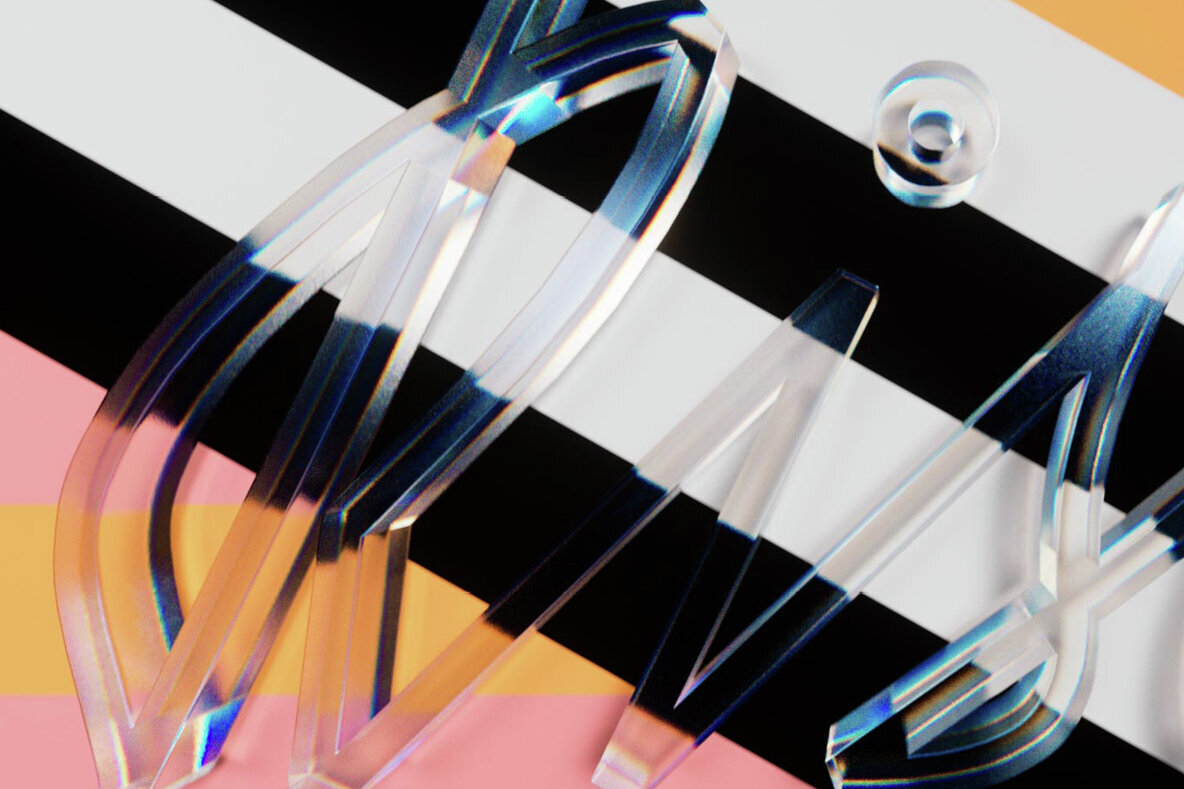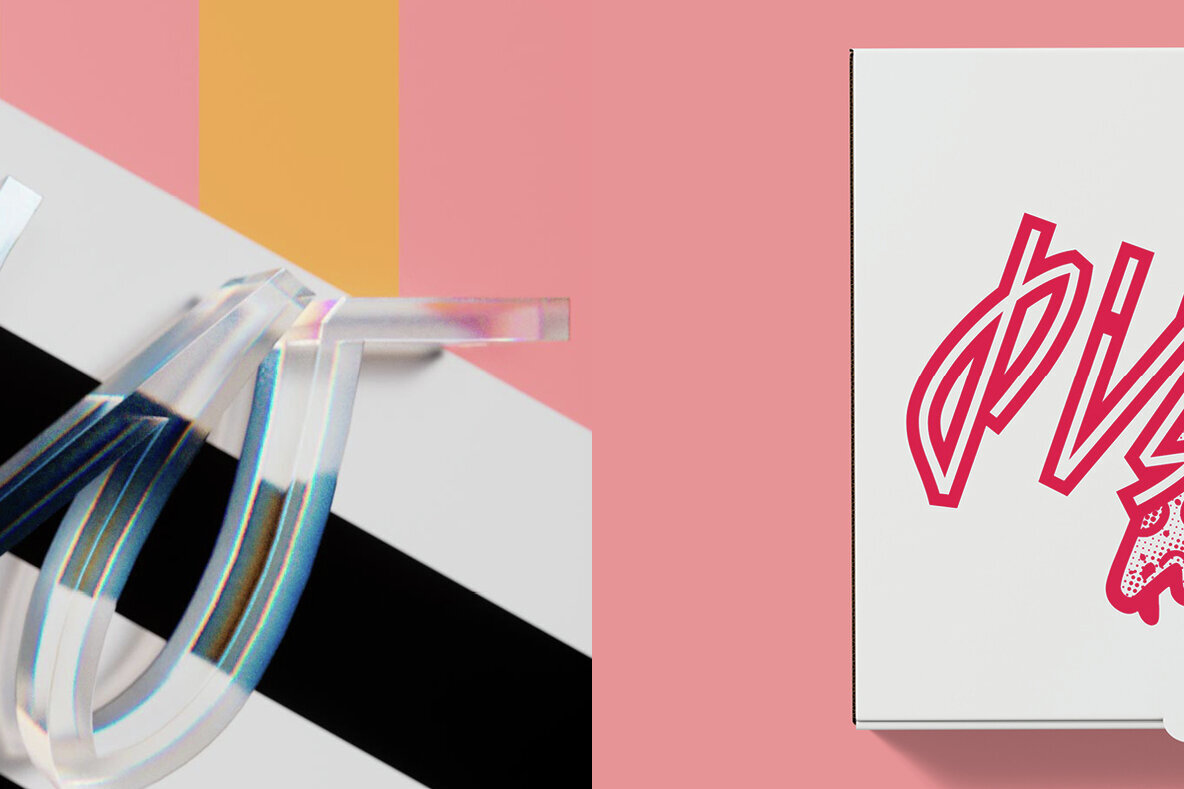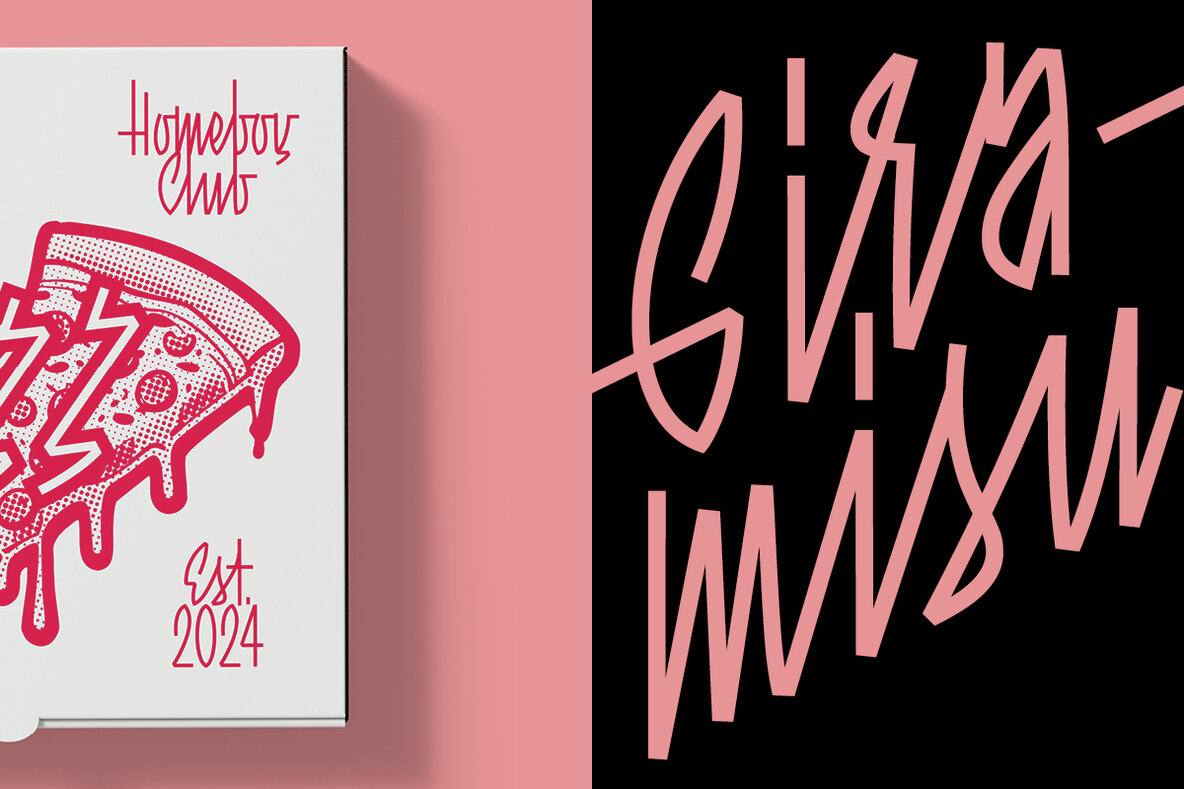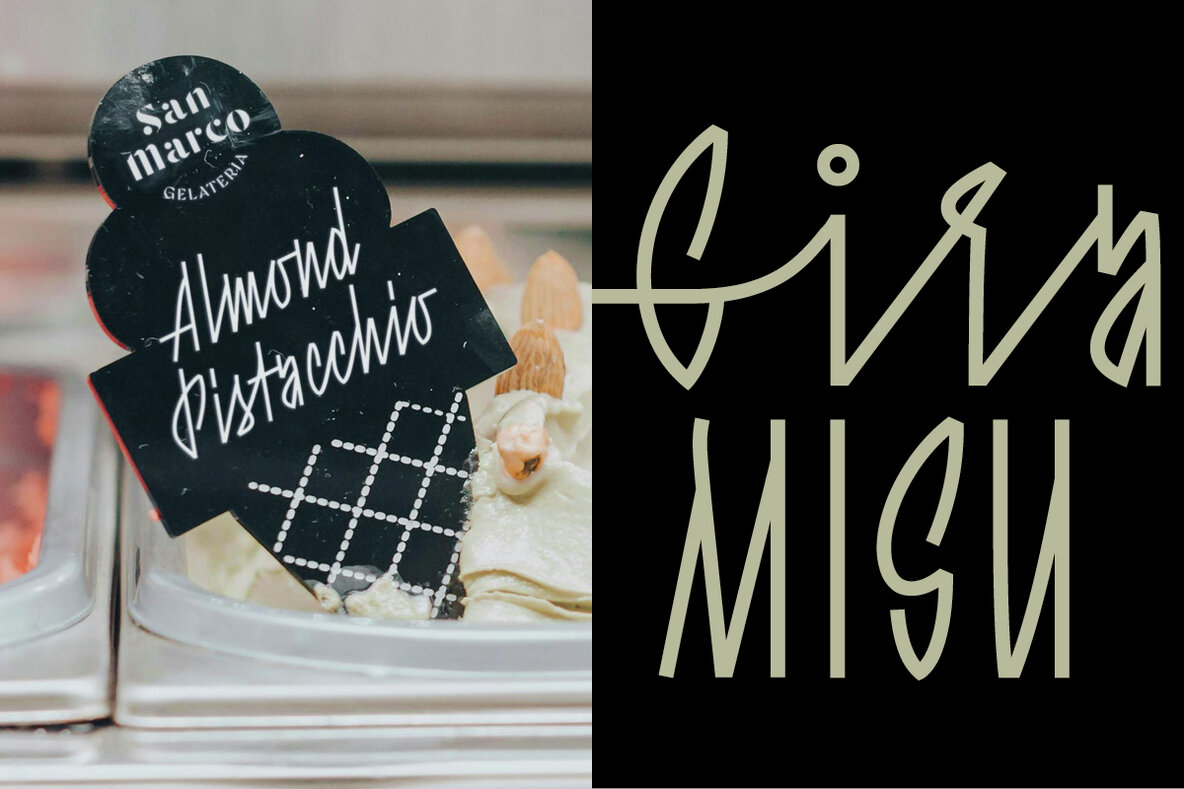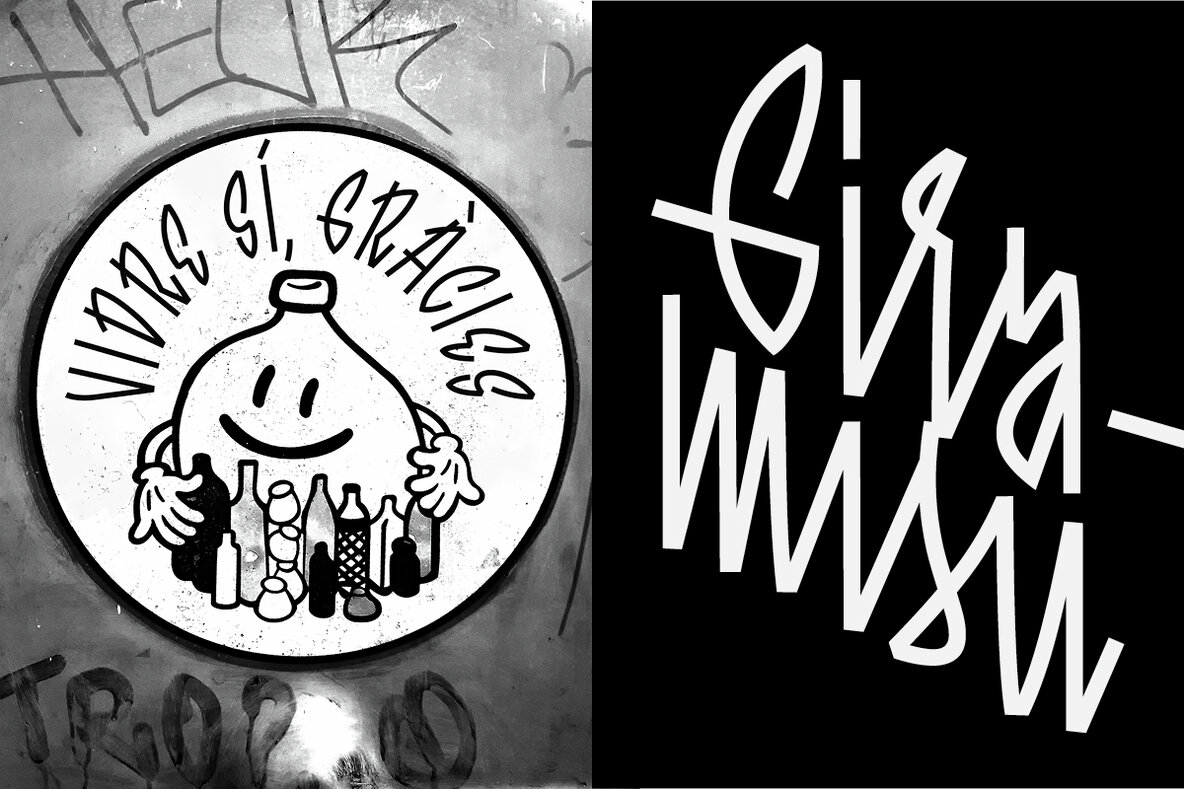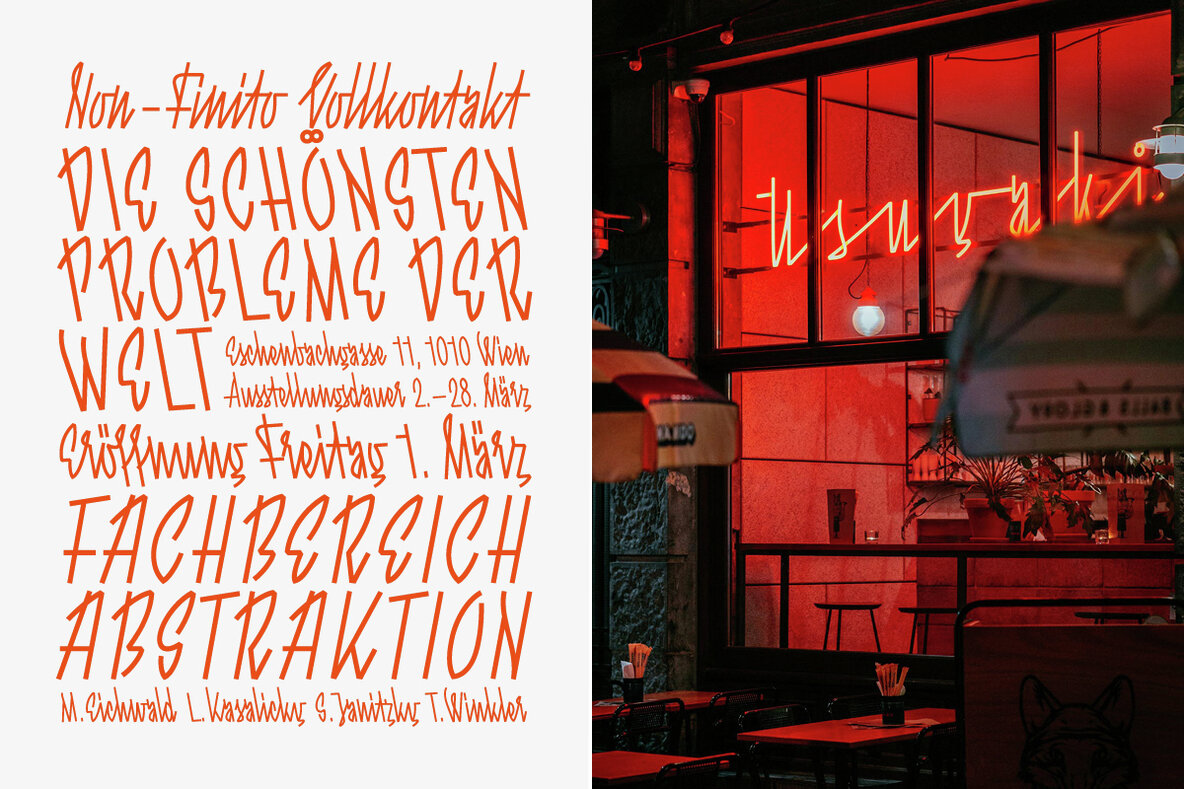
Giramisu Font
Giramisu is an edgy monoline script font, taking a formal approach from 20th-century neon signage towards a present-day display typeface. If there is one defining characteristic, it is: urbanity — seamlessly combining the formal language of neon sign makers with the self-expression of urban tagging. Technically, Giramisu is an incredible shape-shifter that expands from Tight to Wide and tilts from Left to Right, ranging from -26 to 26 degrees. Most of the letters connect throughout the entire design space, but — in the dictation of a funky rhythm — certain pairings in the tighter states do not. These stylistic gaps are bridged only in wider conditions to ensure legibility. Explicit fitness for all-caps text setting is given by its own set of isolated capitals.
Located in a central district of Vienna, Austria, Roland Hörmann runs phospho – a studio that specializes in both graphic and type design. In 2007 he made his first serious attempts at type design, and in the following year, he published his first typeface, Adhesive Nr. Seven. Since then, he’s seen great succe...